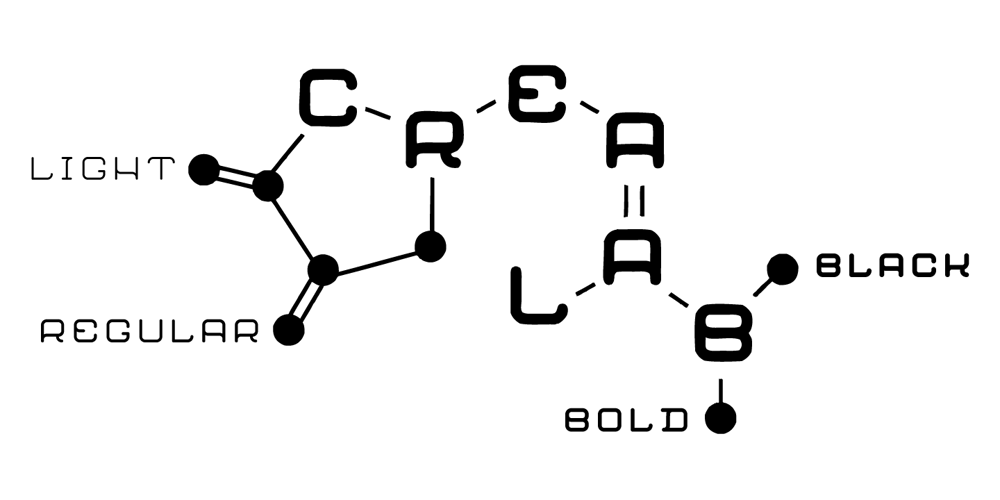
Crealab Font Family was designed by Florent Courtaigne and published by Cubo Fonts. Crealab contains 8 styles and family package options. This font was designed for CREALAB, a Shanghai-based Innovation Design Company. As the company’s slogan – “catalyzing ideas” – corporate identity focus on crossing technical expertise and personal creativity. It displays a solid square background – inspired by scientific symbols – and a fresh rounded creative attitude.